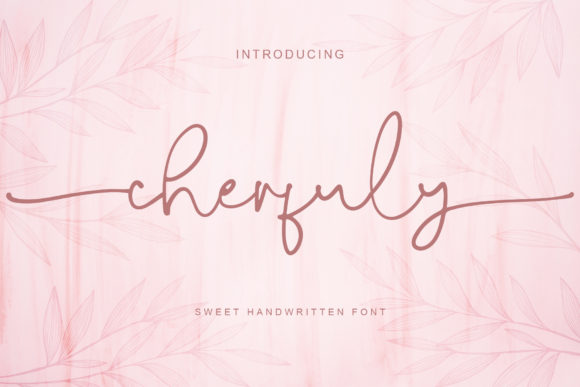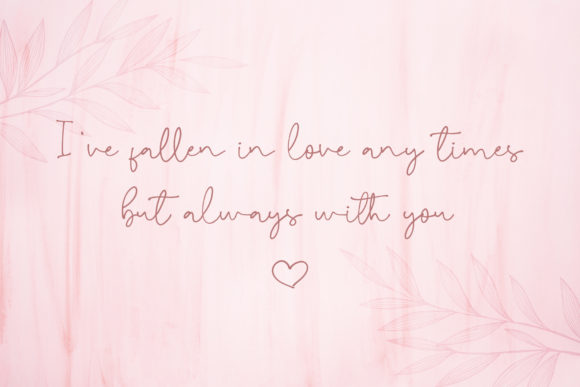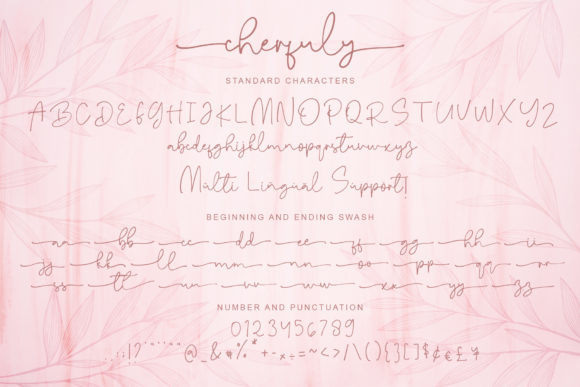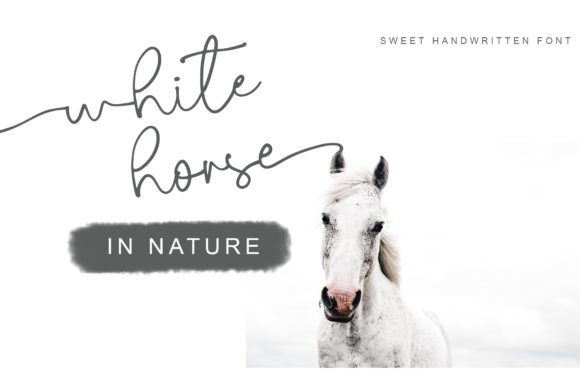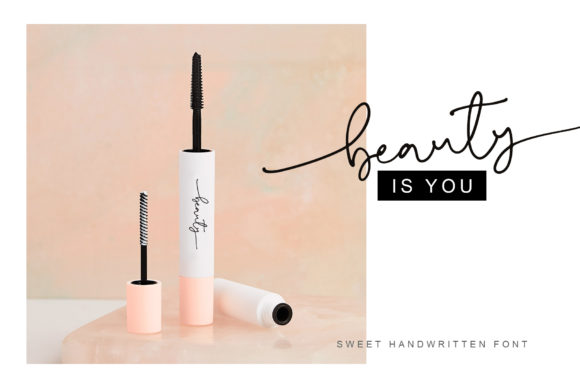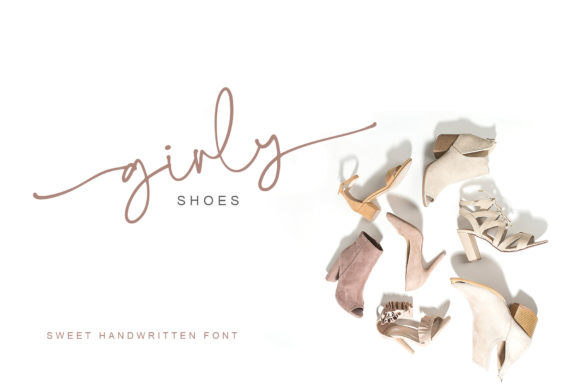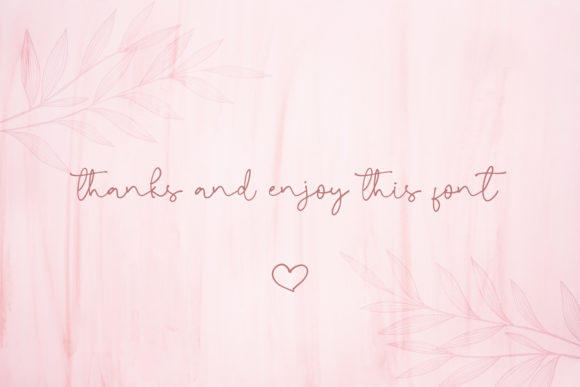
Cherfuly Font
About Cherfuly Font
Cherfuly is a handwritten script font with a classy style. This font is PUA encoded which means you can access all of the amazing glyphs and swashes with ease! It also features a wealth of special features including alternate glyphs and ligatures.